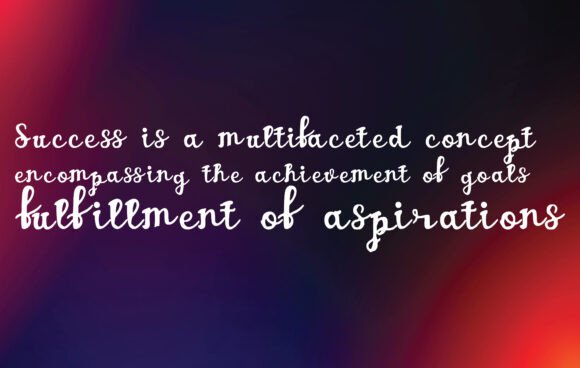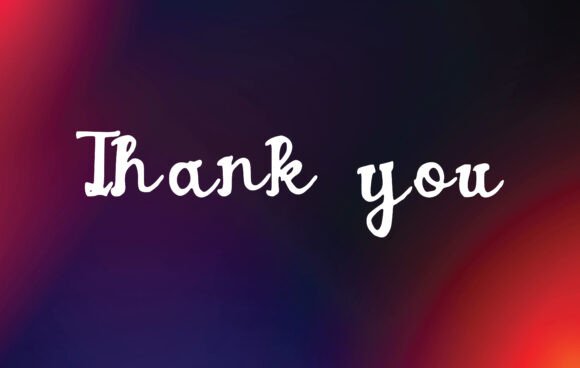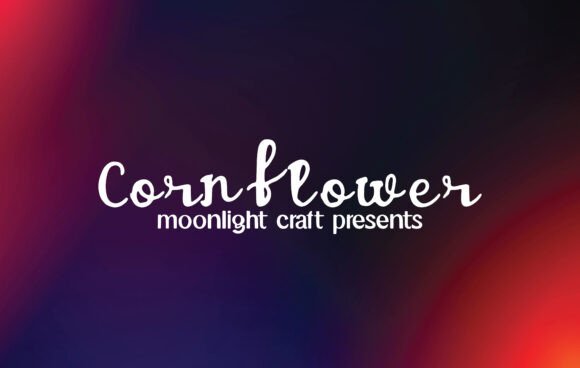
Cornflower Font: Elevate Your Creative Ideas with this Lovely Handwritten Font
Are you a designer, crafty person, or someone who loves to express themselves through creative projects? Look no further than the Cornflower Font, a beautiful handwritten font that can take your ideas to new heights. In this article, we’ll explore the features and benefits of the Cornflower Font, and why it’s the perfect choice for creating eye-catching logos, branding, and quotes.
What is Cornflower Font?
Cornflower Font is a lovely and beautiful handwritten font that exudes elegance and sophistication. Its unique and flowing script makes it perfect for a wide range of creative projects, from logo design and branding to quotes and social media graphics. With its whimsical and artistic feel, Cornflower Font is sure to capture the attention of your audience and leave a lasting impression.
Features of Cornflower Font
So, what makes Cornflower Font so special? Here are just a few of its key features:
- Handwritten script: Cornflower Font has a beautiful, handwritten script that gives it a personal and artistic feel.
- Unique and elegant: The font’s unique and elegant design makes it perfect for creating eye-catching logos, branding, and quotes.
- Versatile: Cornflower Font can be used for a wide range of creative projects, from digital graphics to print materials.
- Easy to read: Despite its artistic feel, Cornflower Font is easy to read and understand, making it perfect for use in quotes and other text-based graphics.
Benefits of Using Cornflower Font
So, why should you choose Cornflower Font for your creative projects? Here are just a few of the benefits of using this lovely font:
- Stand out from the crowd: With its unique and elegant design, Cornflower Font can help your creative projects stand out from the crowd and capture the attention of your audience.
- Convey your message effectively: The font’s easy-to-read script makes it perfect for conveying your message effectively, whether you’re creating a logo, branding materials, or quotes.
- Add a personal touch: Cornflower Font’s handwritten script gives your creative projects a personal and artistic feel, making them more relatable and engaging.
- Save time and effort: With Cornflower Font, you can create professional-looking graphics in no time, saving you time and effort in the design process.
How to Use Cornflower Font
Using Cornflower Font is easy and straightforward. Here are just a few tips to get you started:
- Choose the right size: Choose a size that’s large enough to be readable, but small enough to fit your design.
- Pair with other fonts: Experiment with pairing Cornflower Font with other fonts to create a unique and eye-catching design.
- Use it for headlines and titles: Cornflower Font is perfect for use in headlines and titles, where its elegant and artistic feel can really shine.
- Experiment with colors: Try out different colors and textures to add depth and interest to your design.
In conclusion, Cornflower Font is a lovely and beautiful handwritten font that’s perfect for designers, crafters, and anyone who loves to express themselves through creative projects. With its unique and elegant design, easy-to-read script, and versatile features, Cornflower Font is the perfect choice for creating eye-catching logos, branding, and quotes. So why wait? Try Cornflower Font today and take your creative ideas to new heights!
Whether you’re a seasoned designer or just starting out, Cornflower Font is a great addition to your font library. Its timeless and artistic feel makes it perfect for a wide range of creative projects, from digital graphics to print materials. So go ahead, get creative, and see what amazing things you can do with Cornflower Font!